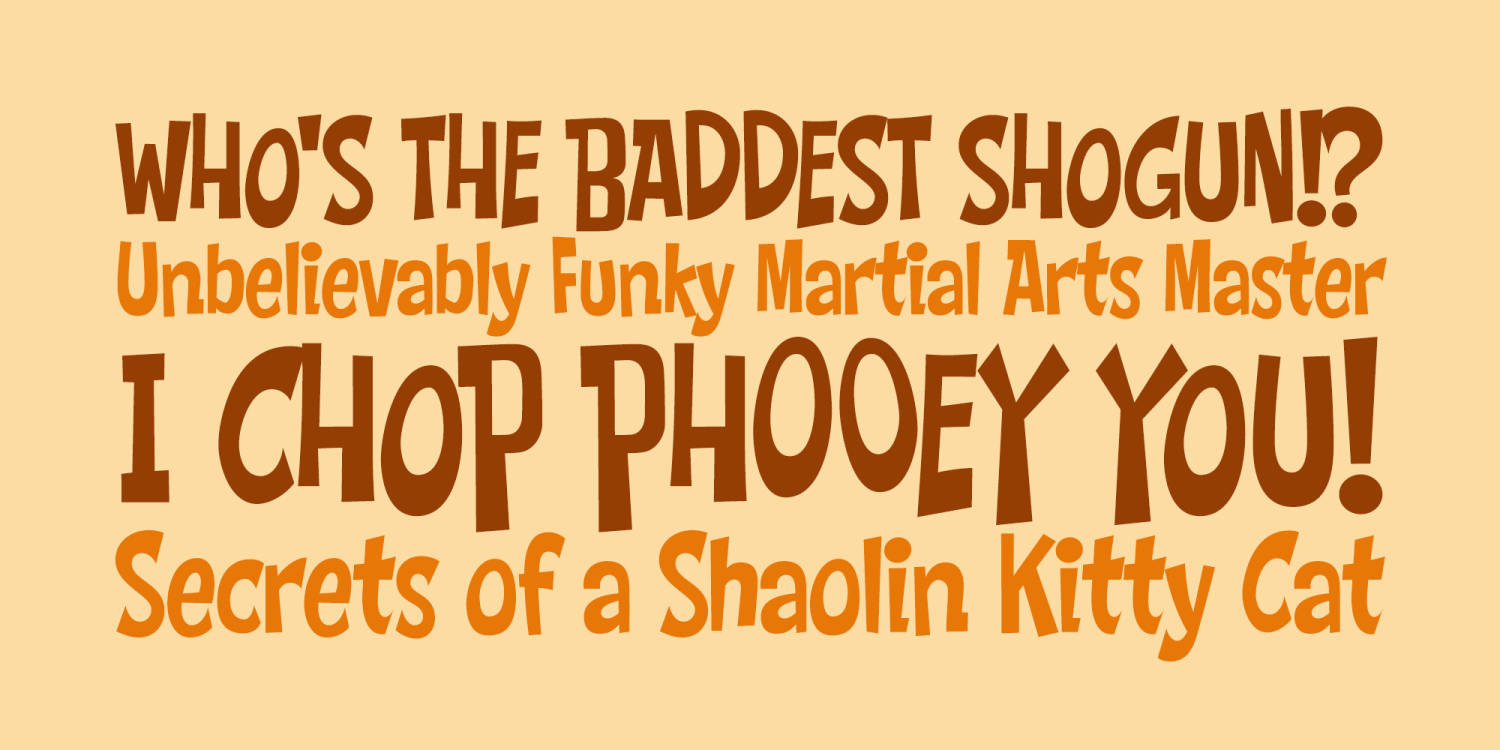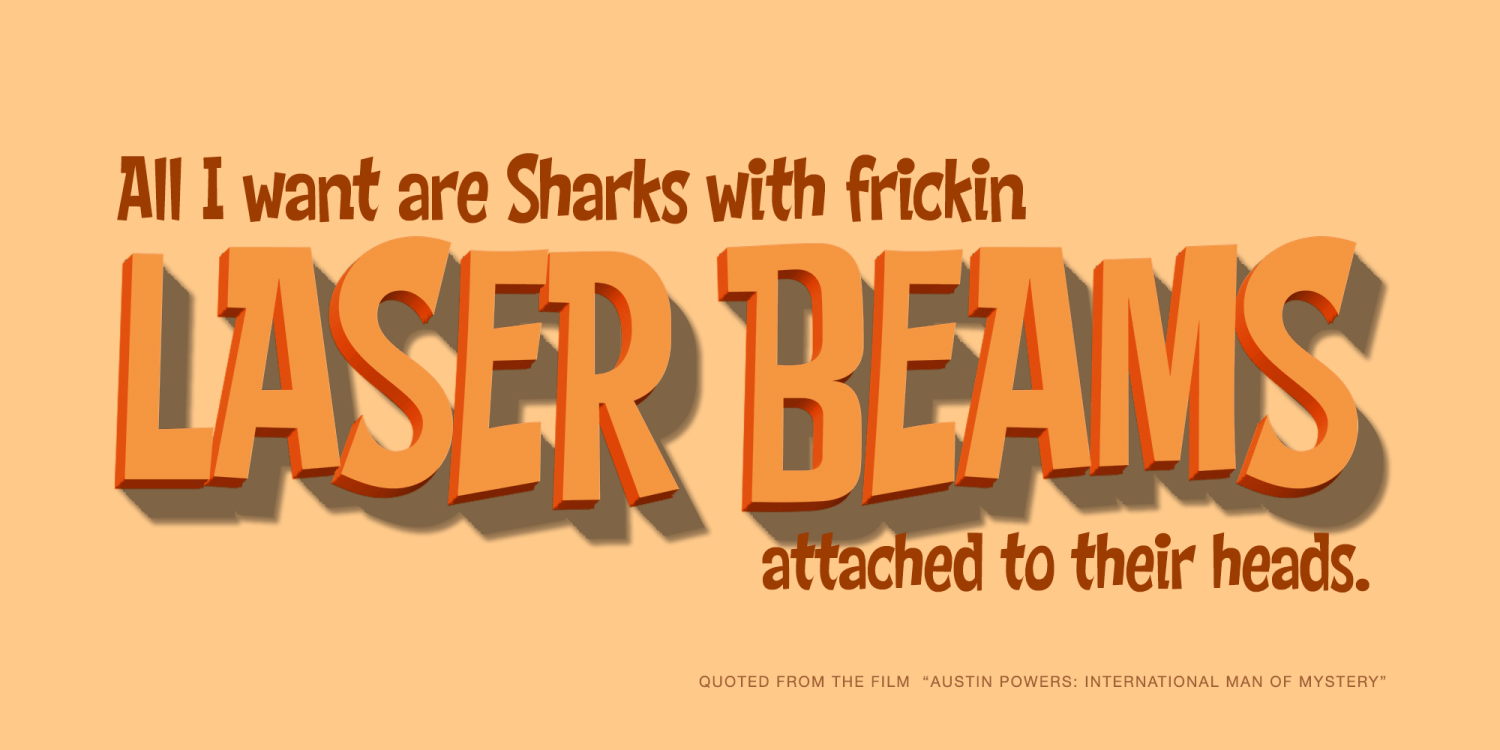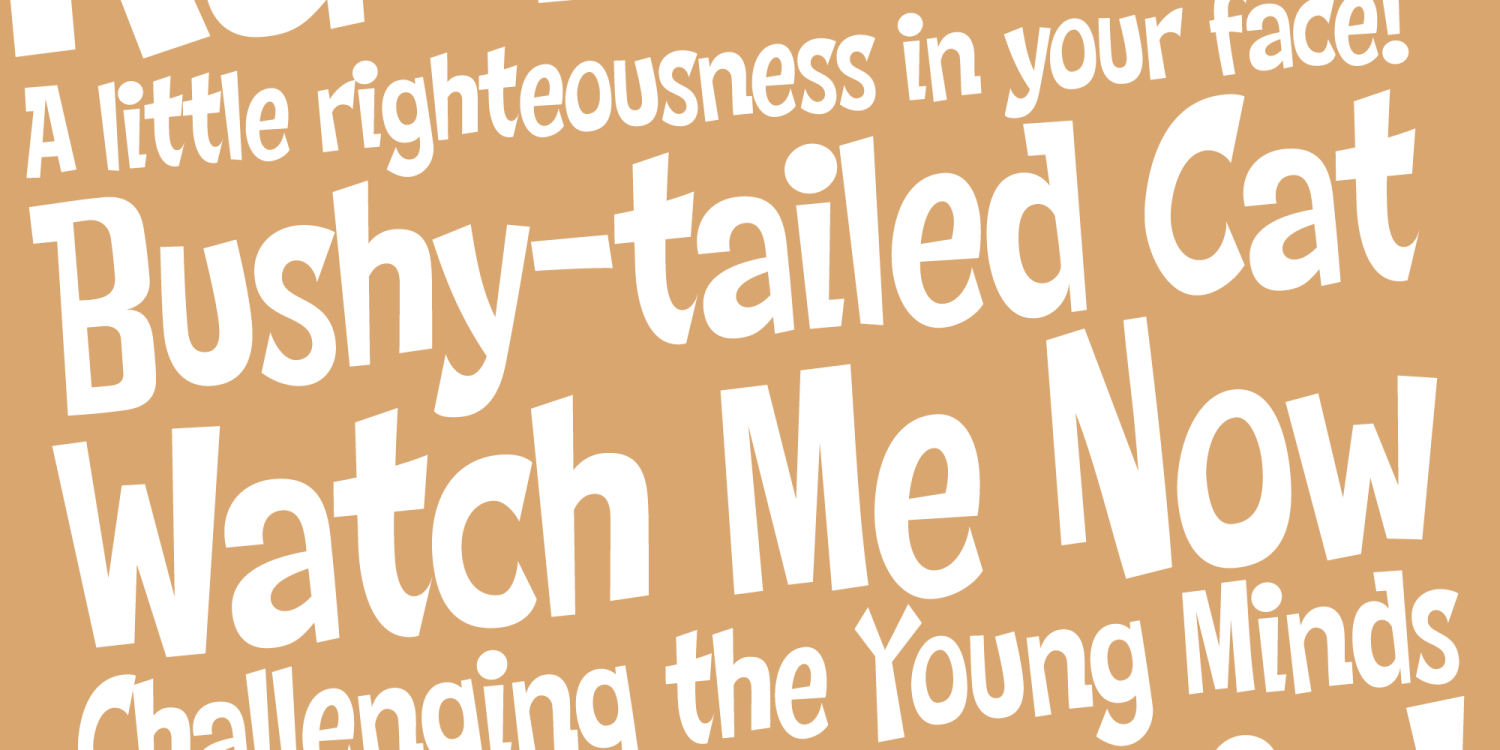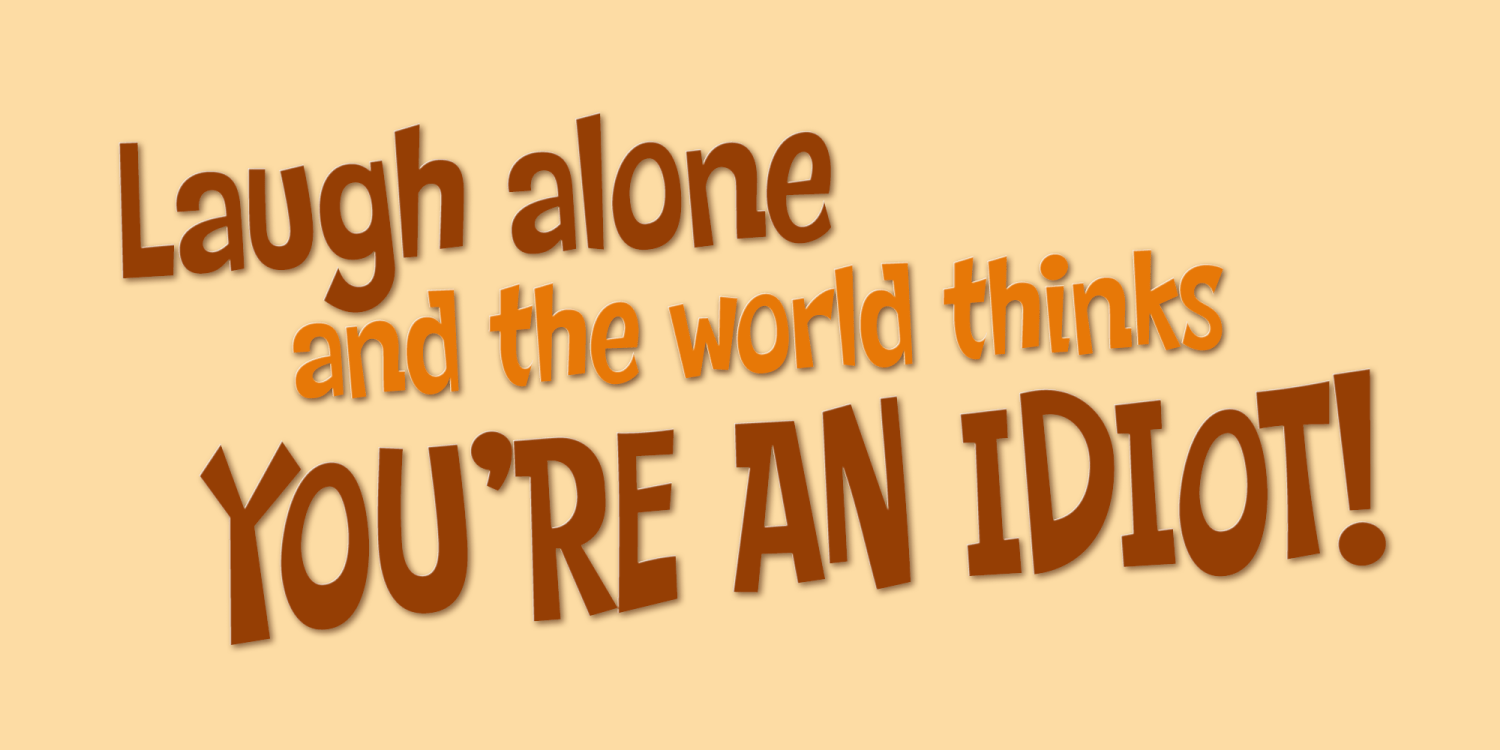
Chop Phooey PB
Font Family by Pink Broccoli
An offbeat typeface inspired by the titling of the 1969 Pink Panther cartoon starring the Aardvark, "Technology, Phooey". It contains an alternate H and T, as well as a handful of ligature swap outs for doubles like EE OO SS TT, etc.